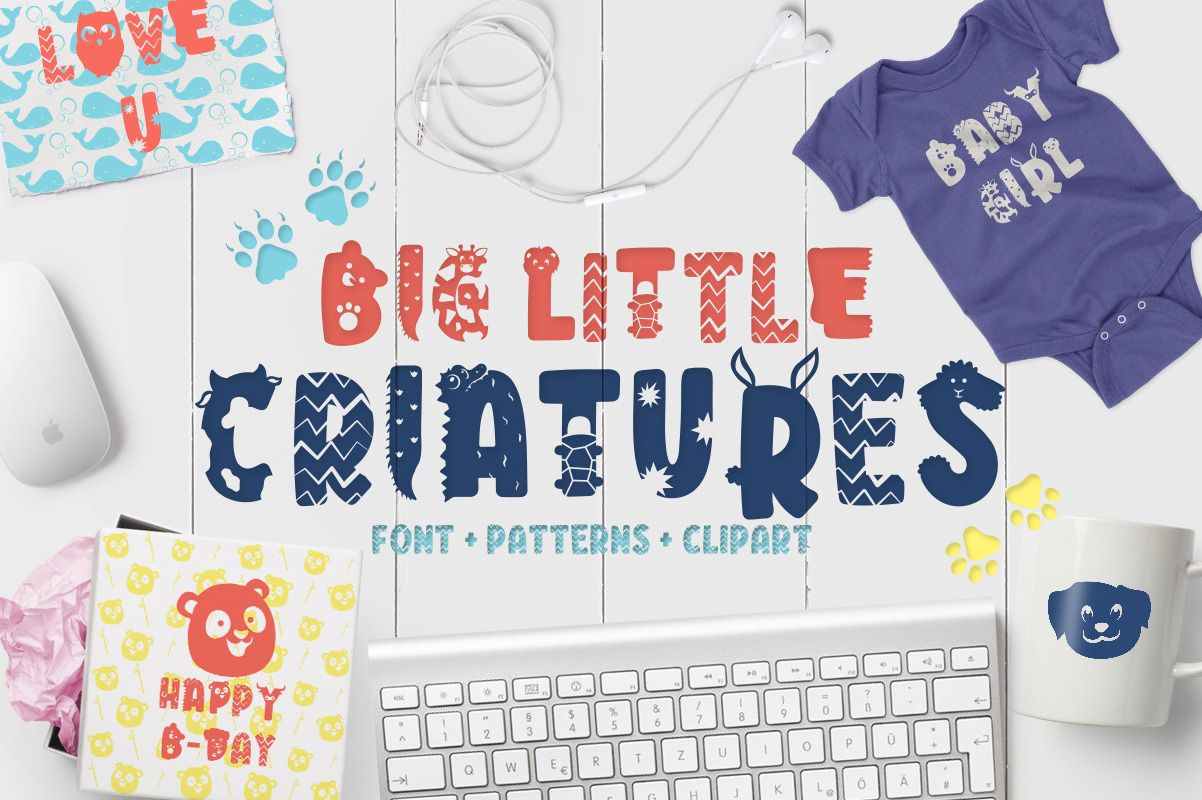
Big Little Creatures - Animal font
Hey guys today I present you with the Big Little Creatures font an kindergarten animal themed script, a playful and childish look that will give your projects the joyful touch you want. The best part is that it doesn't come alone, you'll get patterns and cliparts to compliment all your creations.